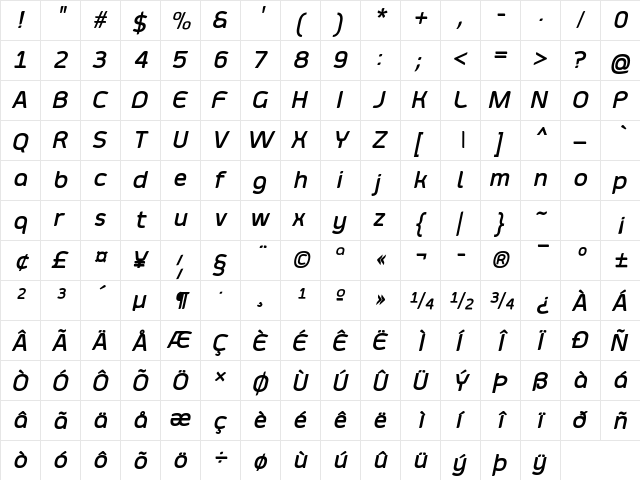
Smoolthan Bold-Italic
| Designer | Situjuh Nazara |
Design Context for Smoolthan Typeface
Smoolthan is a composed and adaptable typeface that performs quietly and consistently across a wide range of design contexts. The slanted form adds forward momentum and visual energy. Its bold stroke weight gives it real presence on the page.
Pro Tip: Try Smoolthan for annotation and caption copy alongside an upright companion — the contrast in angle creates a dynamic but ordered typographic system.